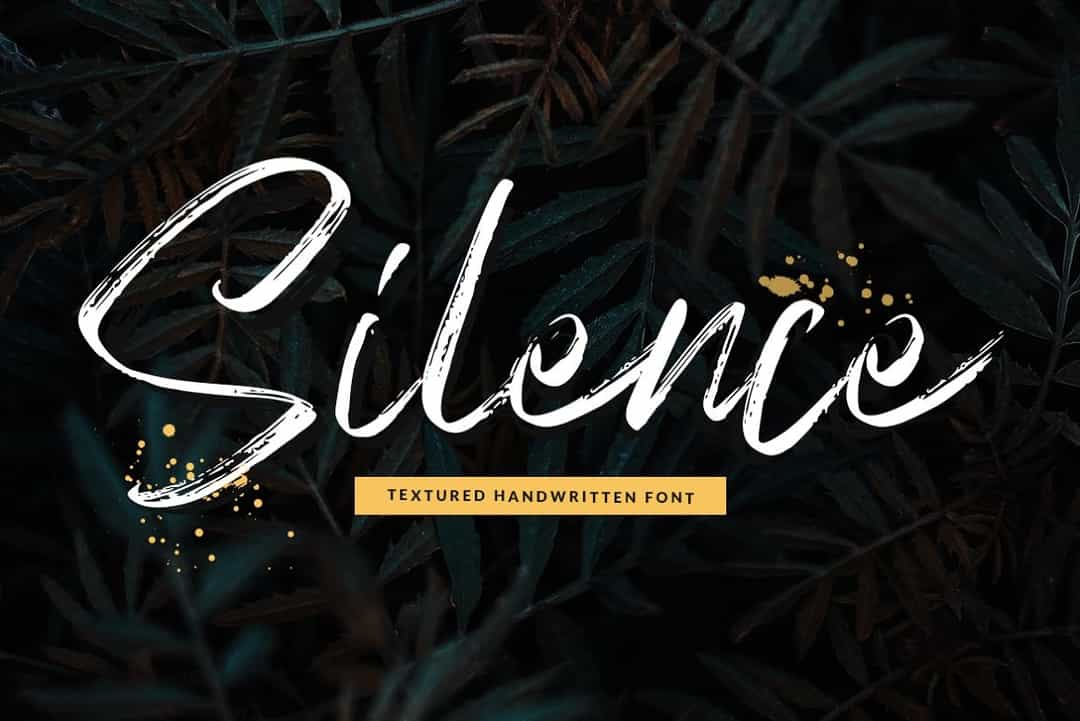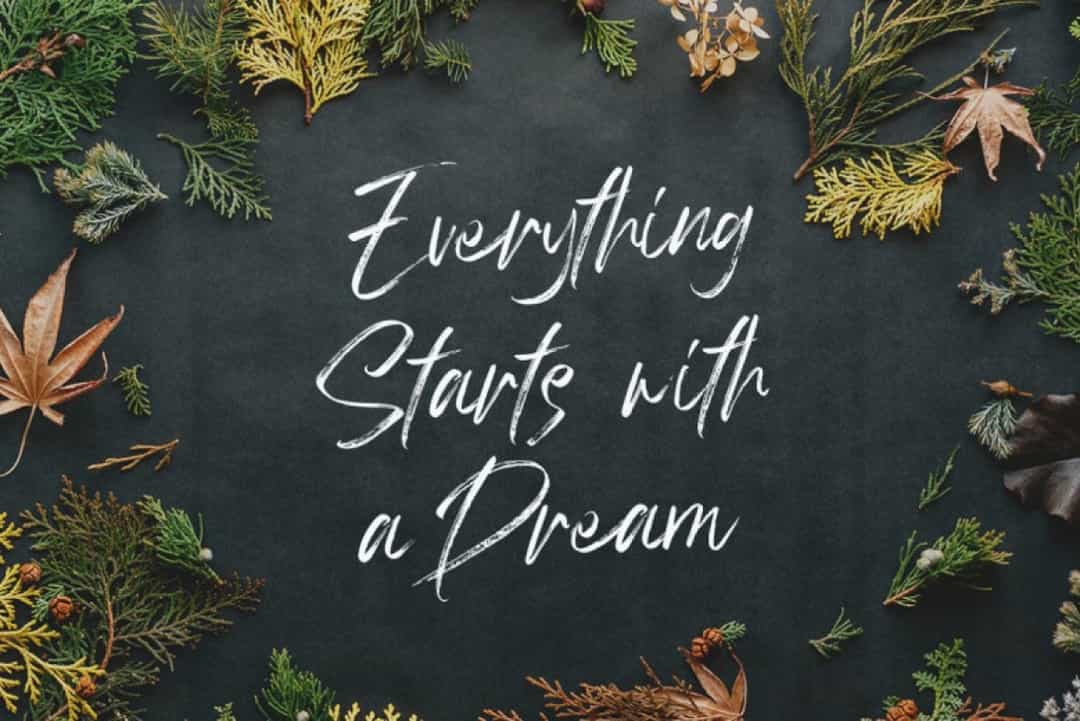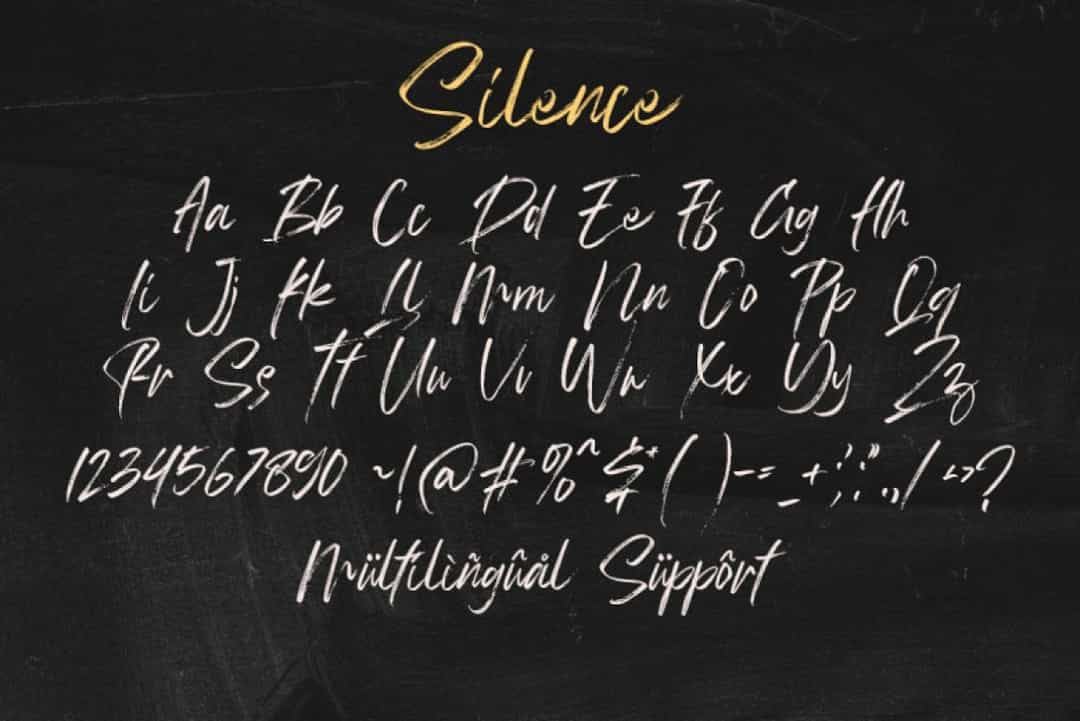
Silence is a handmade brushscript font with an informal yet bold style, featuring bold strokes in an easy flowing manner for an enjoyable reading experience. This font stands out with excellent legibility and accessibility; every stroke is carefully drawn with care to show its flow in harmony, producing a natural aesthetic appearance.